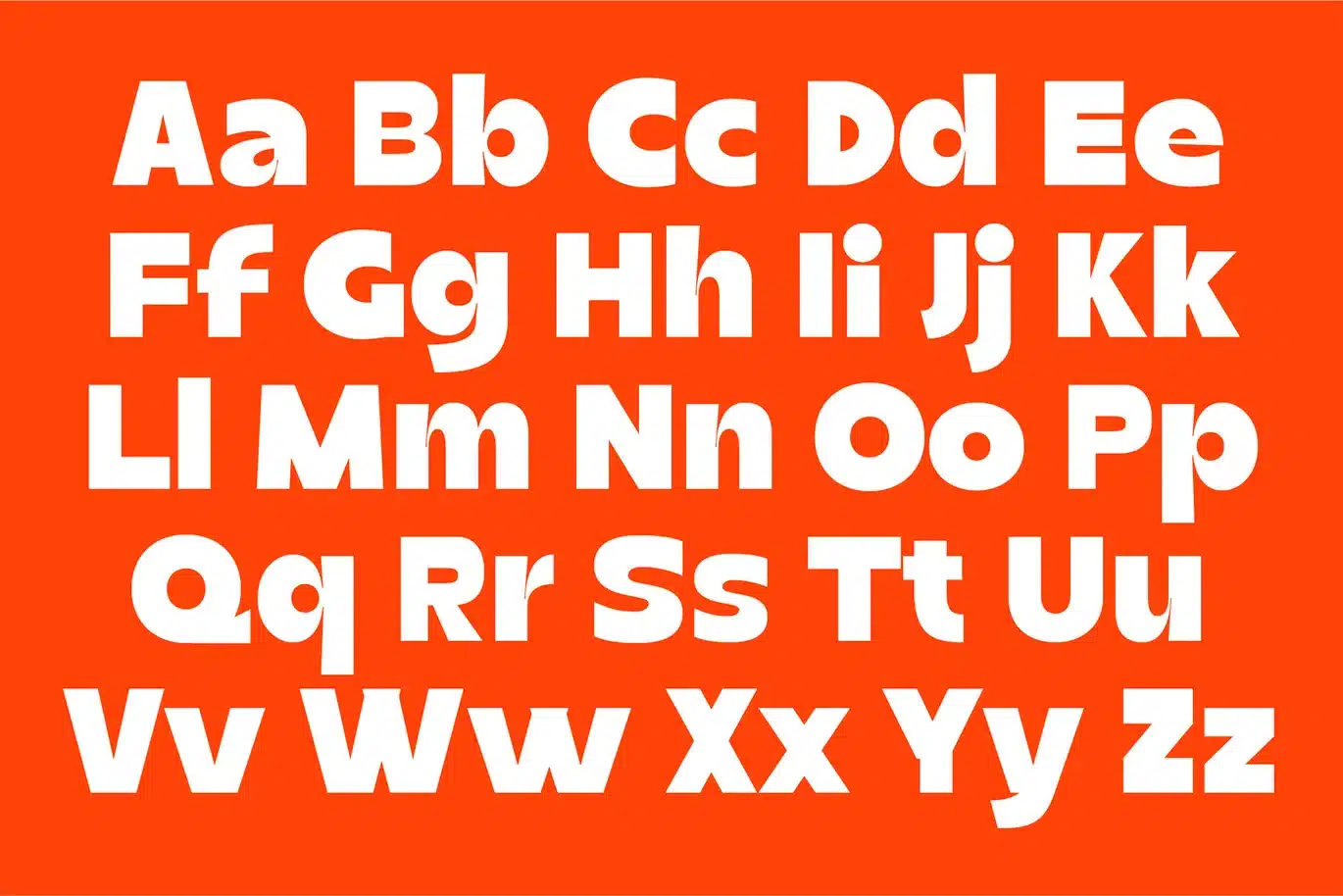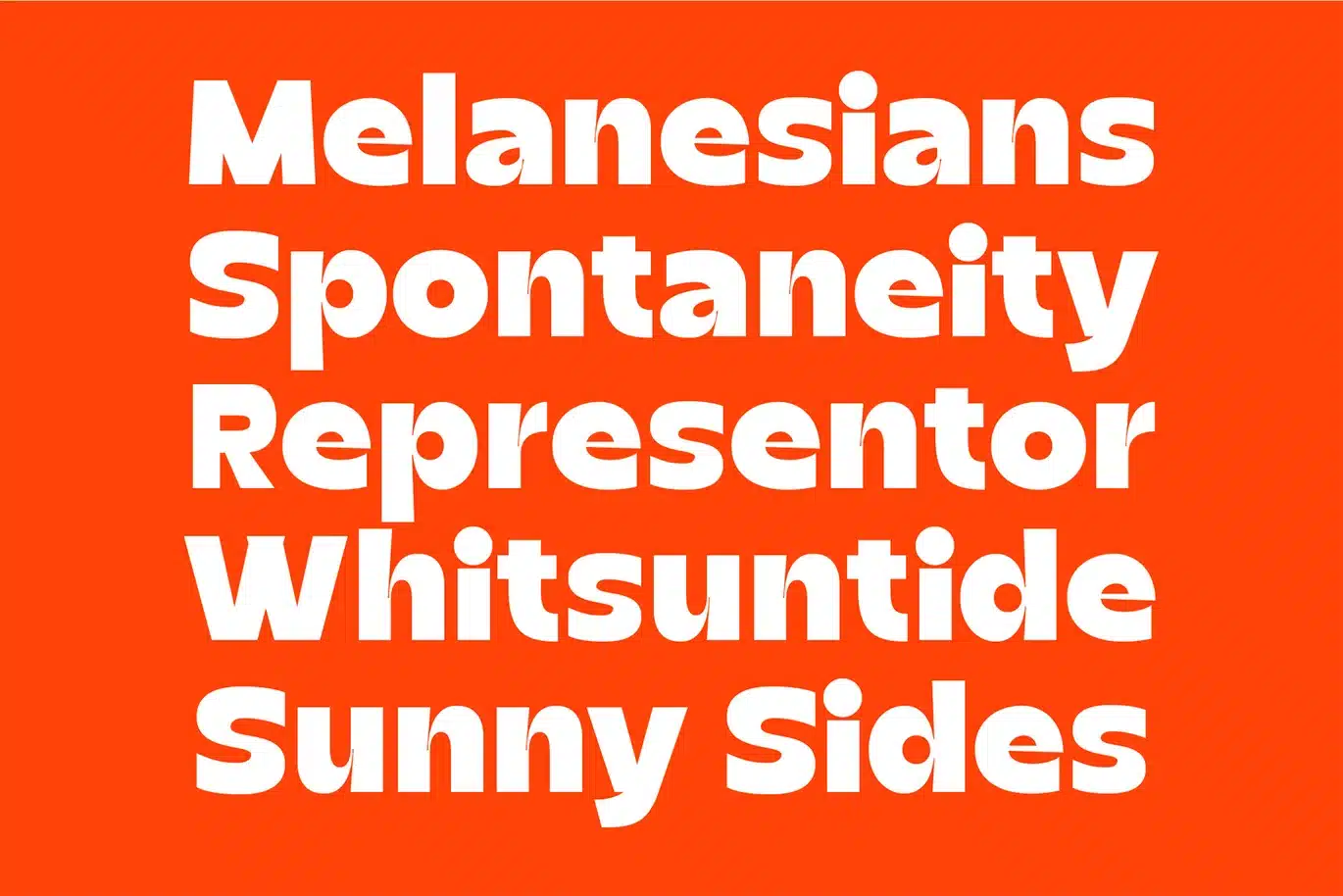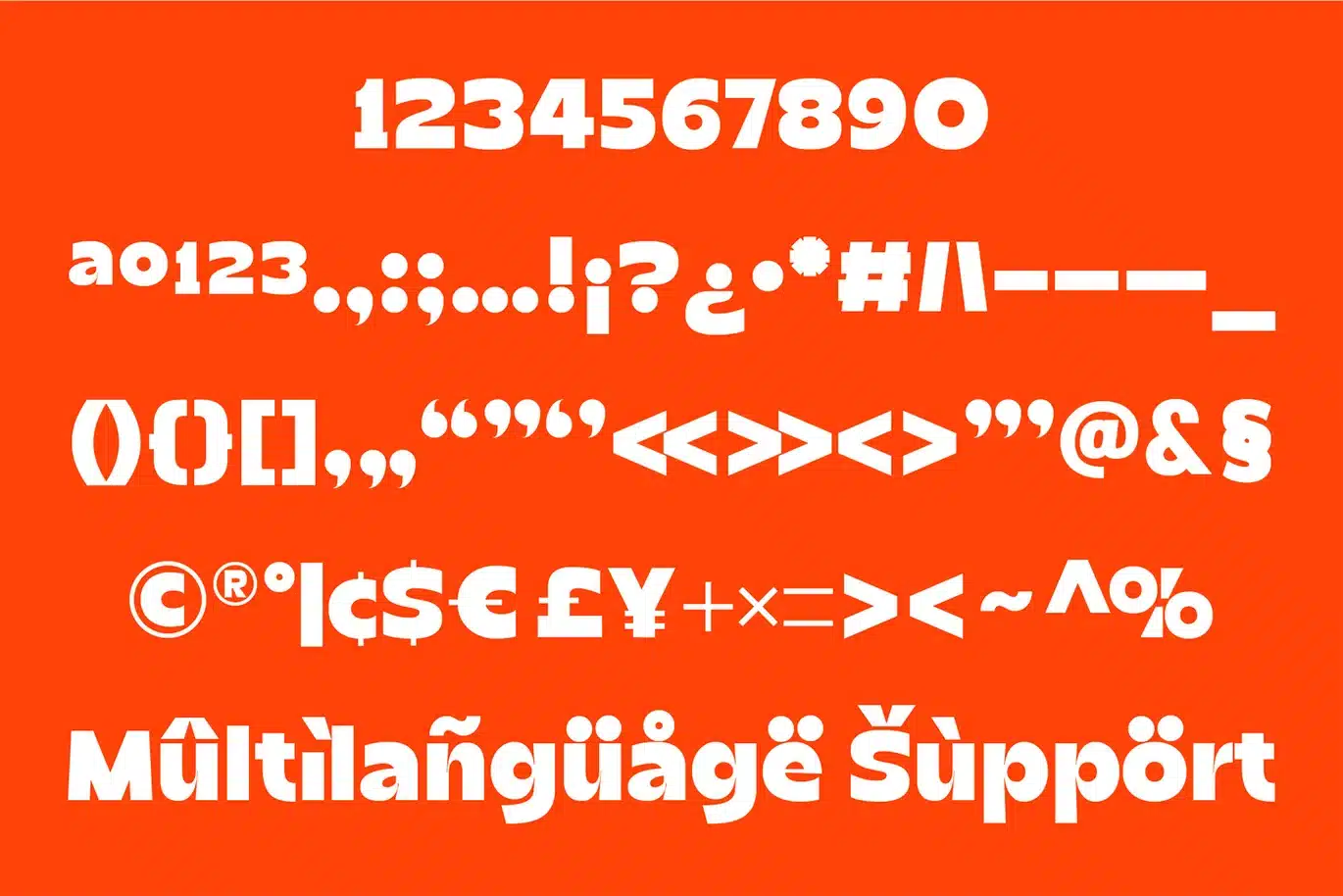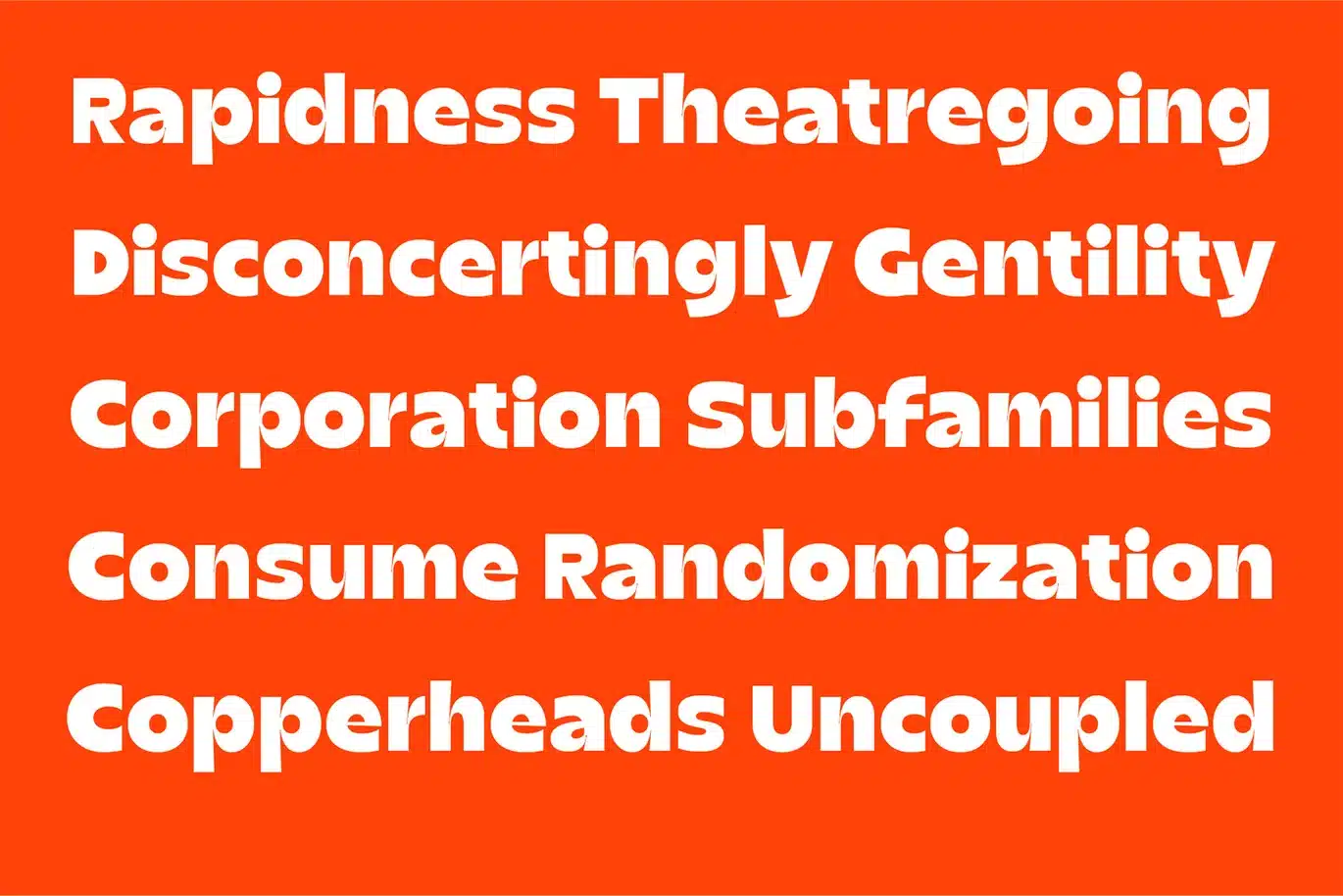
Sunny Side Font
“Sunny Side” evokes the feeling of a warm, cheerful day, and as a sans-serif typeface it carries that brightness into its letterforms. Its shapes would be soft and rounded, with generous curves and open counters that make the text feel approachable and friendly. The overall tone is upbeat, modern, and easygoing—perfect for brands or projects that want to communicate optimism without losing clarity. Whether used in playful headlines, inviting packaging, or lighthearted digital interfaces, a font like Sunny Side would bring a sense of joy and simplicity, making every message feel a little more welcoming.